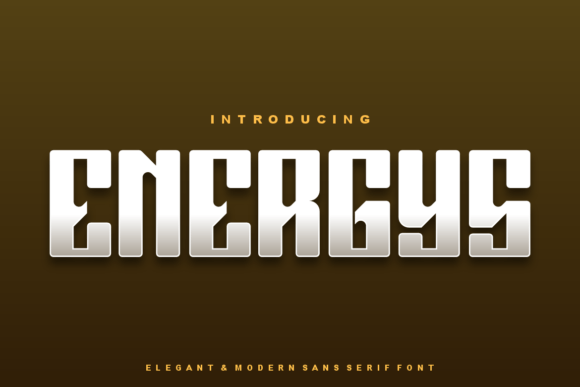
Introducing Energys, the electrifying display font that will ignite your designs with a burst of energy! Its sharp, geometric lines and bold presence demand attention, making it the perfect choice for creating captivating campaign posters that leave a lasting impression.
With Energys, your messages will radiate confidence and vibrancy, cutting through the noise and grabbing the spotlight. Its dynamic curves and angles add a touch of dynamism, propelling your words to new heights. Whether you're promoting an adrenaline-pumping event or a groundbreaking initiative, Energys will amplify your message with style.
We understand the power of words, and Energys is crafted to enhance their impact. Its carefully constructed letterforms provide legibility and clarity, ensuring your message is communicated with maximum effectiveness. The open counters and clean lines create a sense of spaciousness, allowing your words to breathe and command attention.
Energys is not just a font; it's a catalyst for creativity. Its versatility extends beyond campaign posters, making it suitable for a wide range of design projects. Unleash your imagination and explore its endless possibilities in branding, logos, headlines, and more.